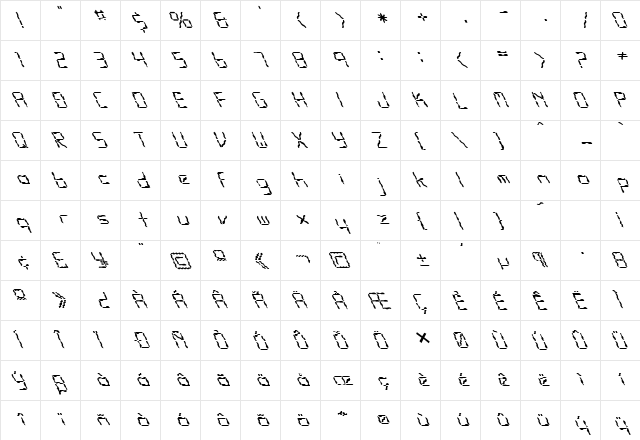
FZ DIGITAL 10 WAVEY LEFTY Normal Font Preview
FZ DIGITAL 10 WAVEY LEFTY Normal
Design Context for FZ DIGITAL 10 WAVEY LEFTY Typeface
FZ DIGITAL 10 WAVEY LEFTY channels digital-age aesthetics through its sharp, structured letterforms — ideal for brands that want to signal innovation.